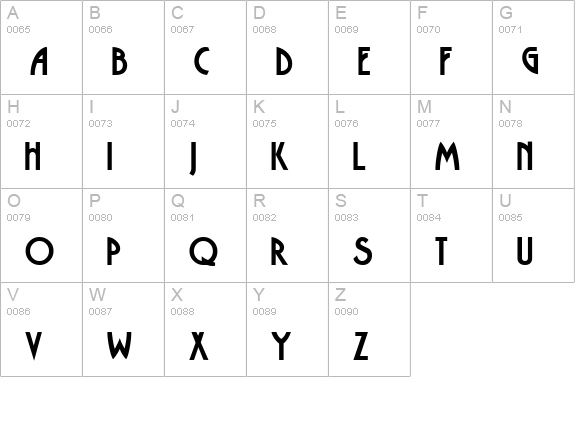
Wash Black is a maximum-weight, dramatic variant in the Wash typeface family \xE2\x80\x94 well suited to maximum-impact headlines, posters, and packaging.
Introducing Wash Black font, an extraordinary typeface that exudes sophistication and elegance. With its bold and powerful design, this font is perfect for making a statement in any project. Its clean and sharp lines create a captivating visual impact, making it ideal for headlines, logos, and branding materials. Wash Black font is not only visually pleasing, but it also offers exceptional versatility. It can effortlessly adapt to various design themes, whether it's modern, minimalist, or even retro. This font is truly a timeless choice that will stand the test of time. And the best part? Wash Black font is available for free! You can easily download this incredible font at FontsMarket.com. The user-friendly website provides a seamless experience, allowing designers and enthusiasts alike to access this font with just a few clicks. Whether you're a professional designer looking to elevate your projects or an amateur looking to add a touch of sophistication to your personal creations, Wash Black font is the perfect choice. Its unique and eye-catching design, coupled with its availability for free at FontsMarket.com, makes it the go-to font for anyone seeking to make a bold statement. Don't miss out on this amazing opportunity to enhance your designs with Wash Black font. Download it now and let your creativity soar to new heights!